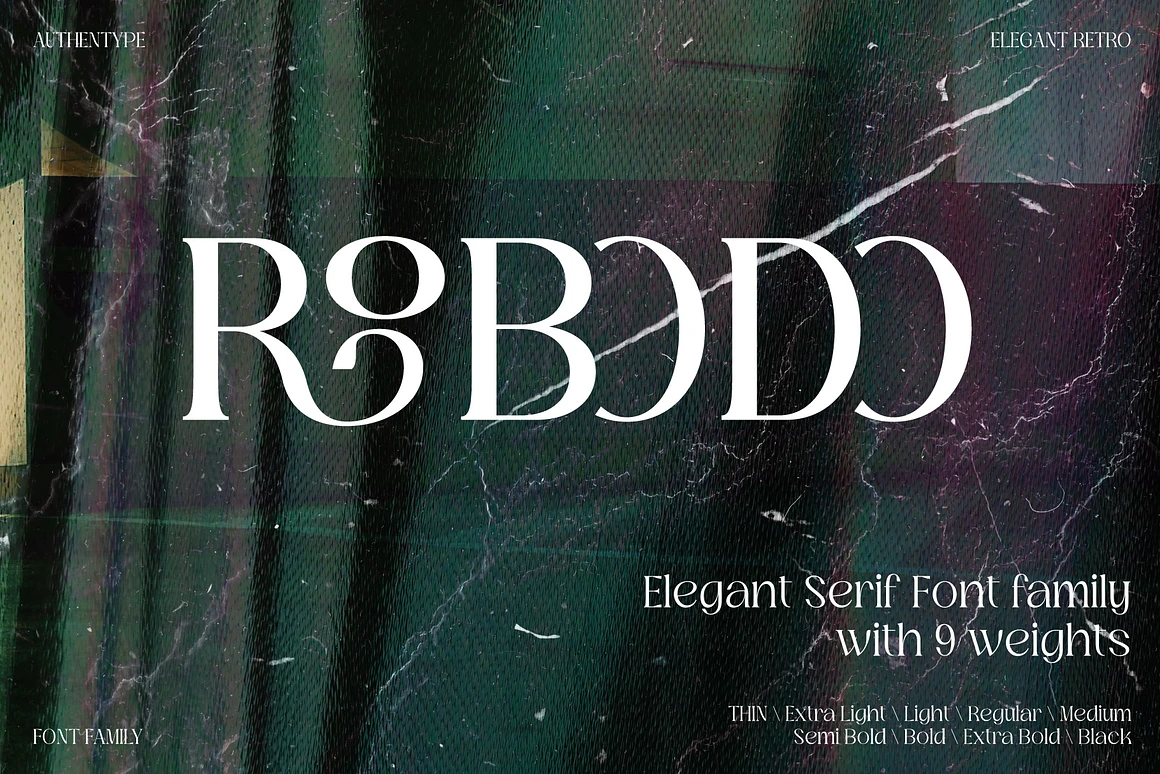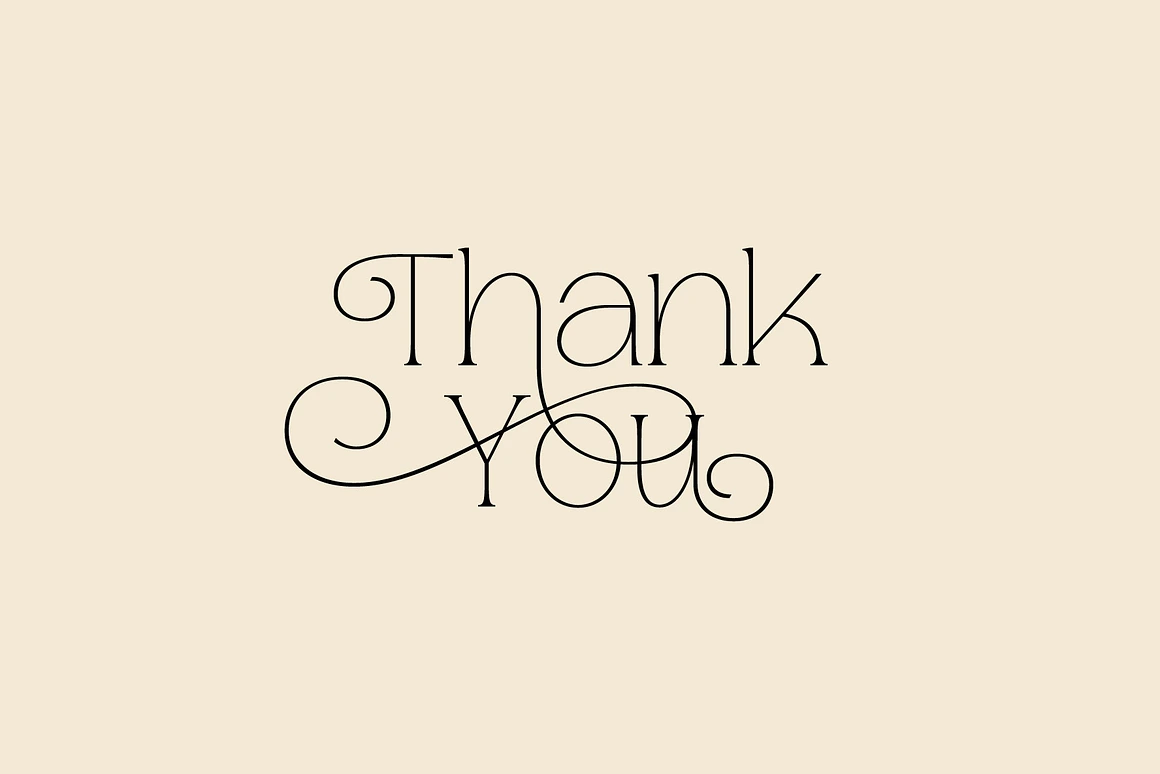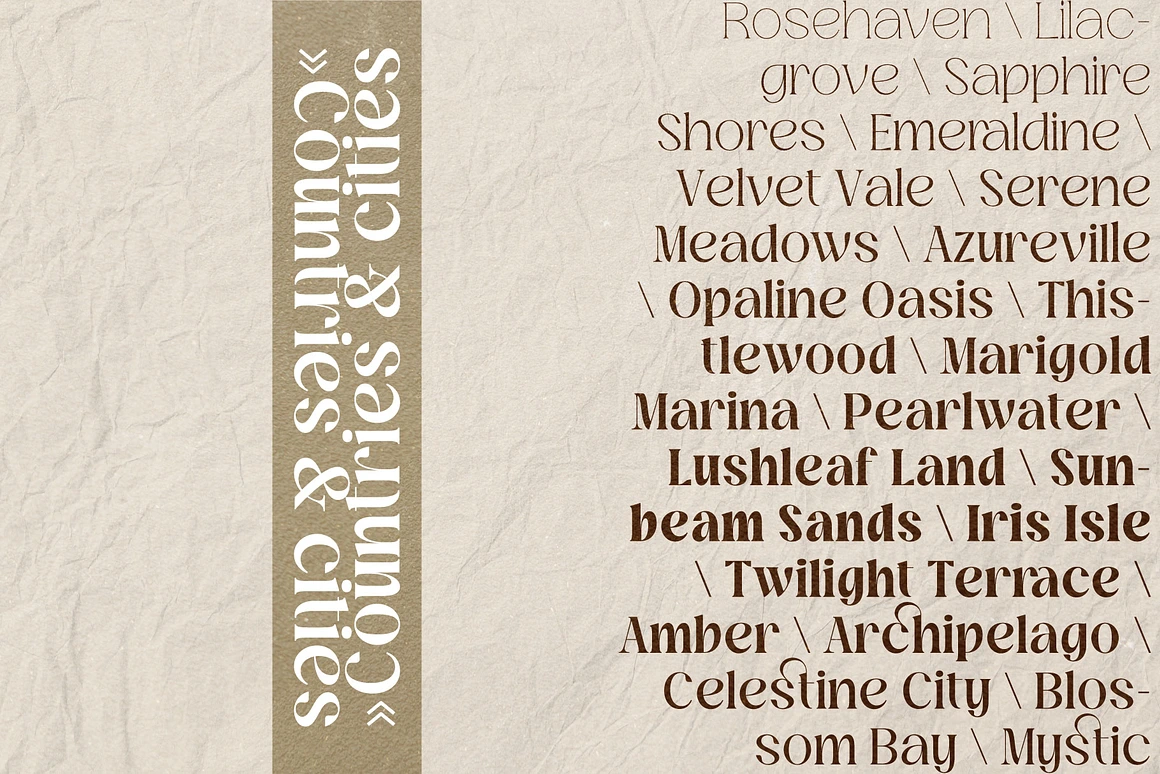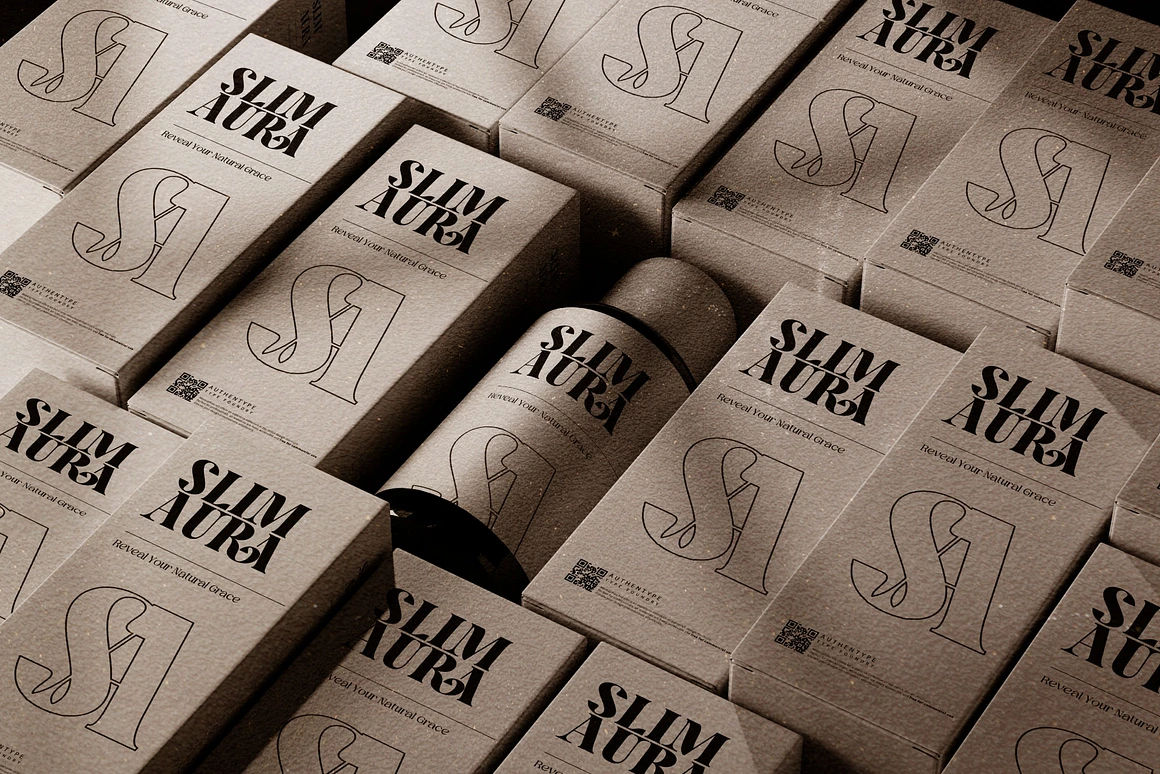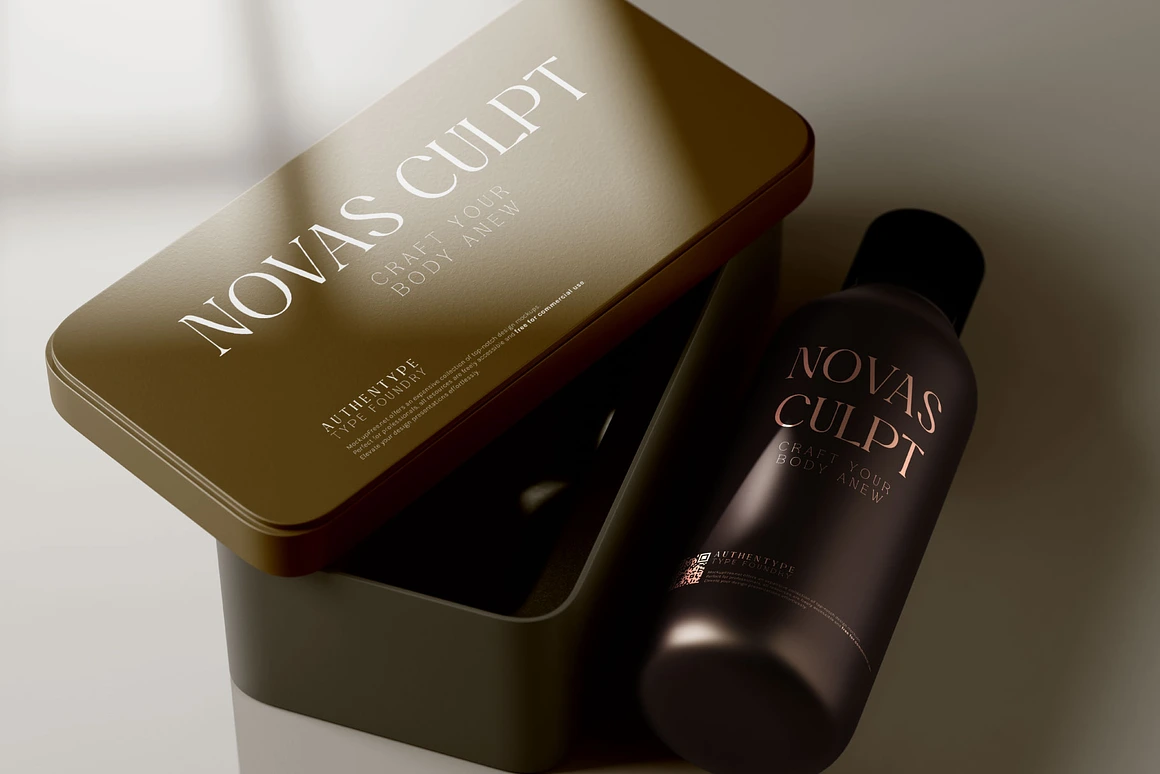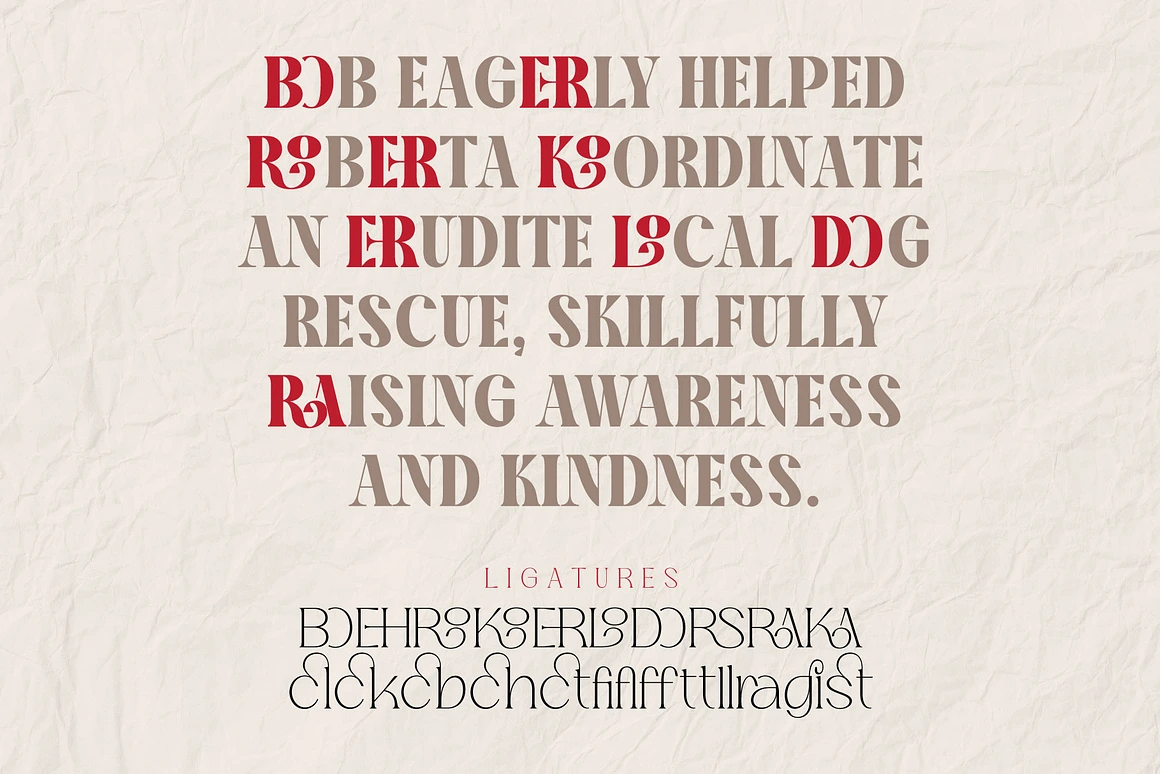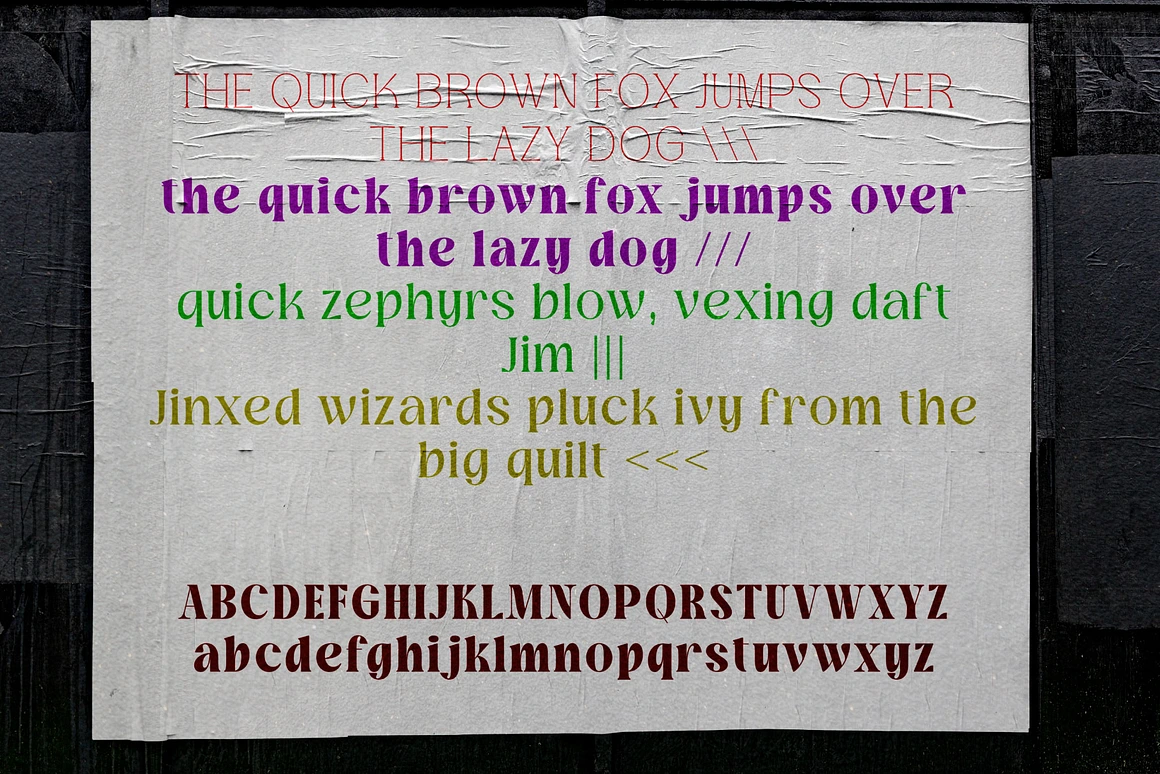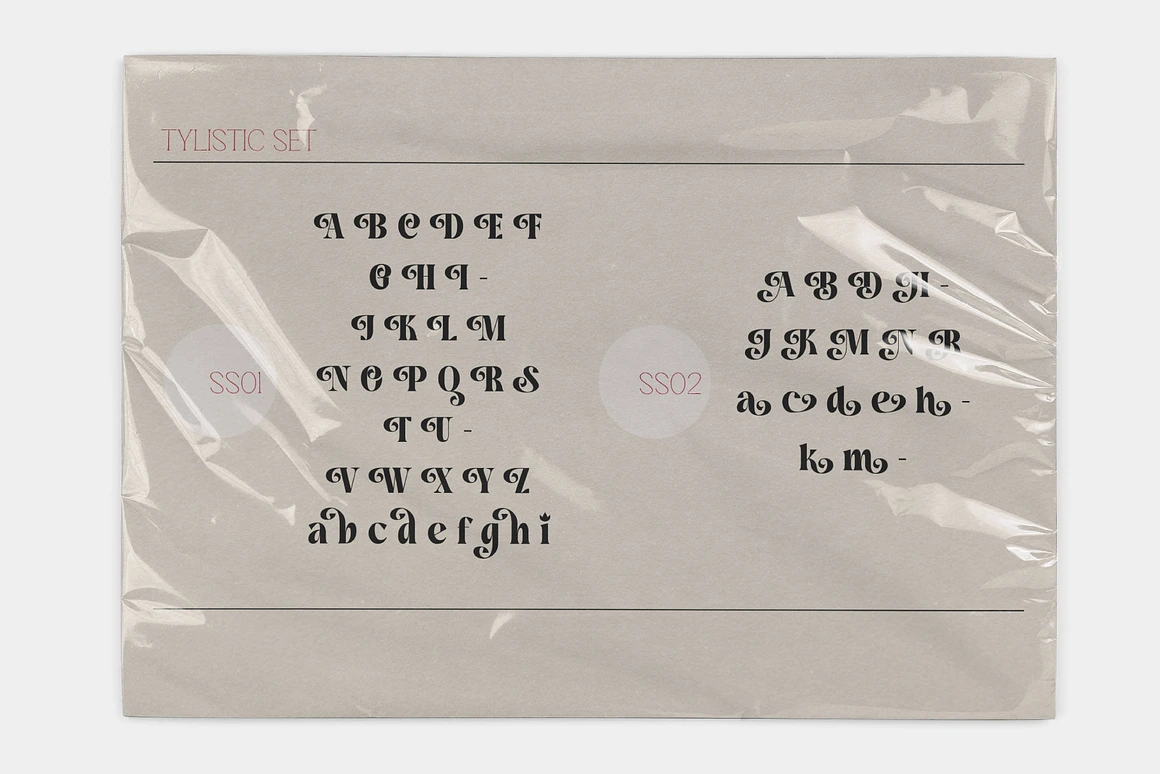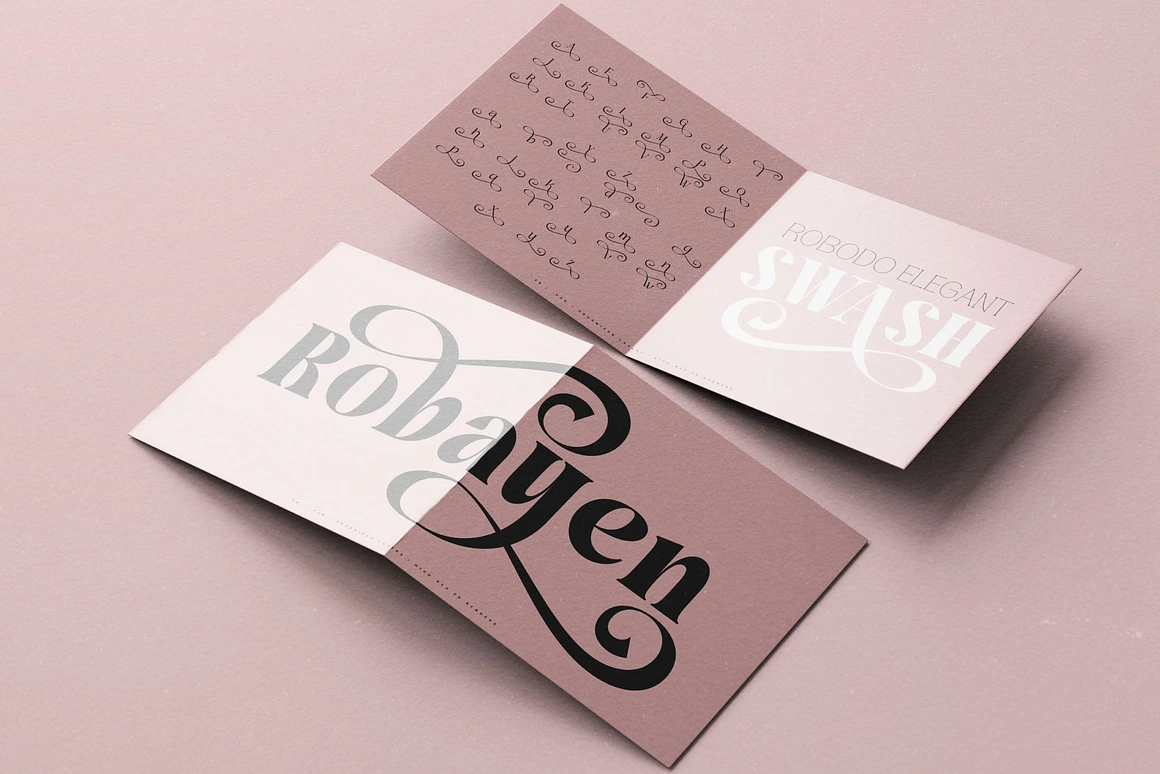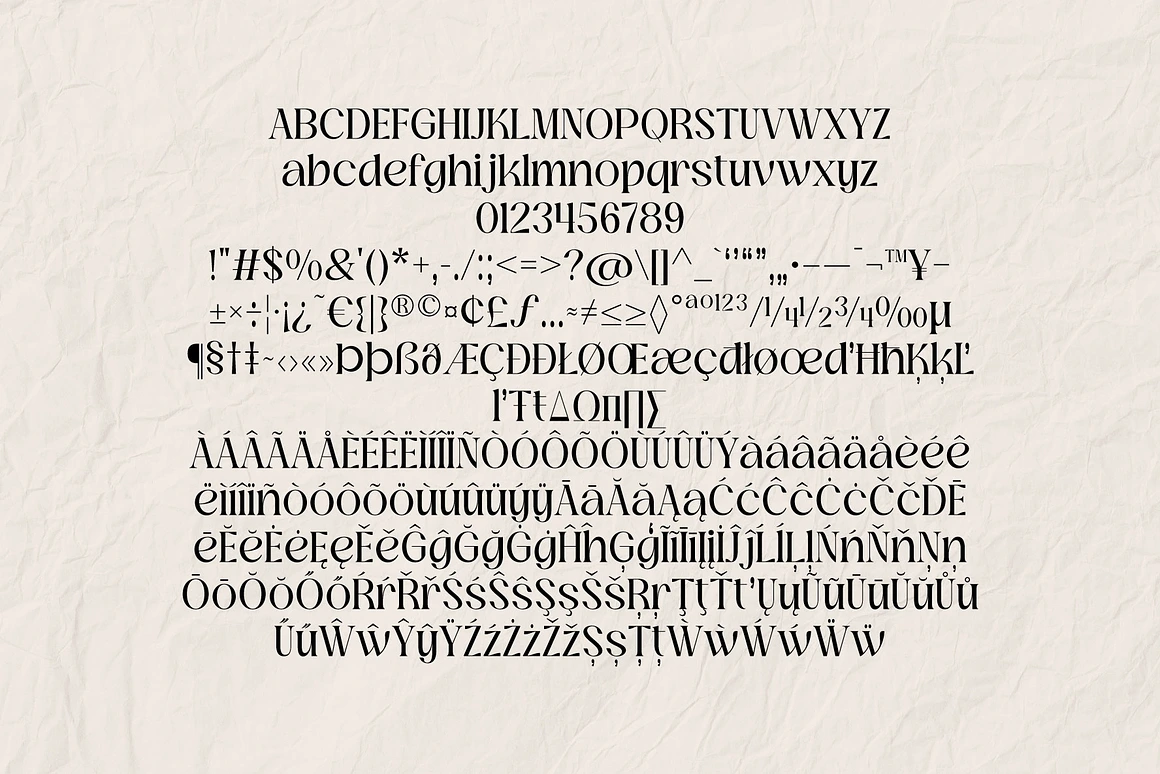
Robodo Serif Font Family
Robodo Complete Family
Robodo Serif Font Family a masterfully crafted collection that embodies sophistication and versatility. With nine distinct weights, Eleganza is designed to cater to a myriad of design needs, making it an invaluable asset for designers and typographers alike.
Each weight of the Eleganza Serif Font Family is meticulously designed to ensure perfect balance and readability. From the ultra-light to the bold and impactful, every font style in this family maintains a graceful elegance that elevates your design work. The fonts feature beautifully curved serifs, lending a classic yet contemporary feel to any project.
Key Features:
* Nine Weights: This comprehensive range includes Thin, Extra-Light, Light, Regular, Medium, Semi-Bold, Bold, Extra-Bold, and Black, providing exceptional flexibility for your creative designs.
* Standard glyphs uppercase and lowercase letters
* Numerals, a large range of punctuation and ligatures, stylistic set 1 & 2, Swash,
* PUA Encoded Characters – Fully accessible without additional design software. Fonts include multilingual support for; ä ö ü Ä Ö Ü ß ¿¡